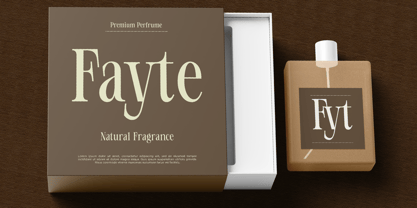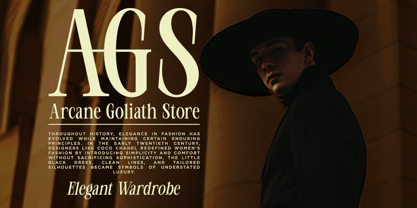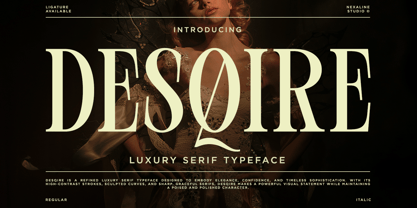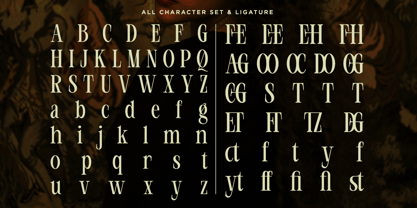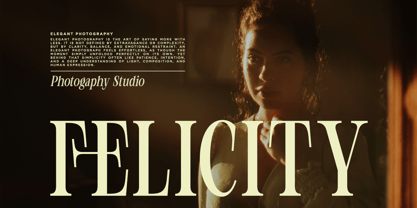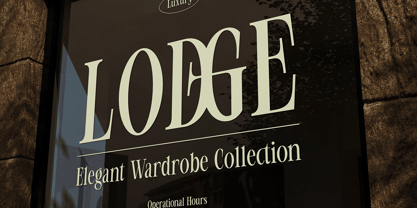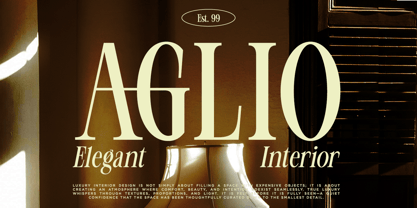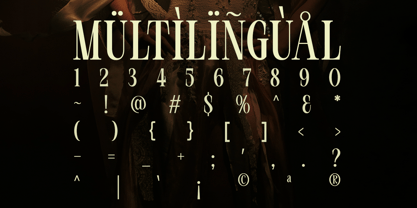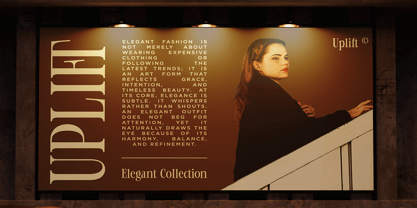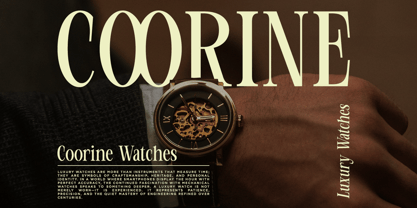
Desqire
by Nexaline Type
The Desqire Font Family was designed by Anggi Surya and published by Nexaline Type. Desqire contains 2 styles and family package options. More about this family
Desqire is a refined luxury serif typeface designed to embody elegance, confidence, and timeless sophistication. It is designed to evoke a sense of high-end poise and polished character. With its high-contrast strokes, sculpted curves, and sharp, graceful serifs, it creates a stunning visual impact for premium designs. Perfect for: Branding & Logo Design Editorial & Magazine Layouts Luxury Packaging & Labels High-end Wedding Stationery Social Media Graphics What’s Inside: Desqire Regular & Italic Full Character Set (A-Z, 0-9, Punctuation) Beautiful Custom Ligatures Multilingual Support PUA Encoded (Canva & Cricut Friendly)
Designers: Anggi Surya
Foundry: Nexaline Type